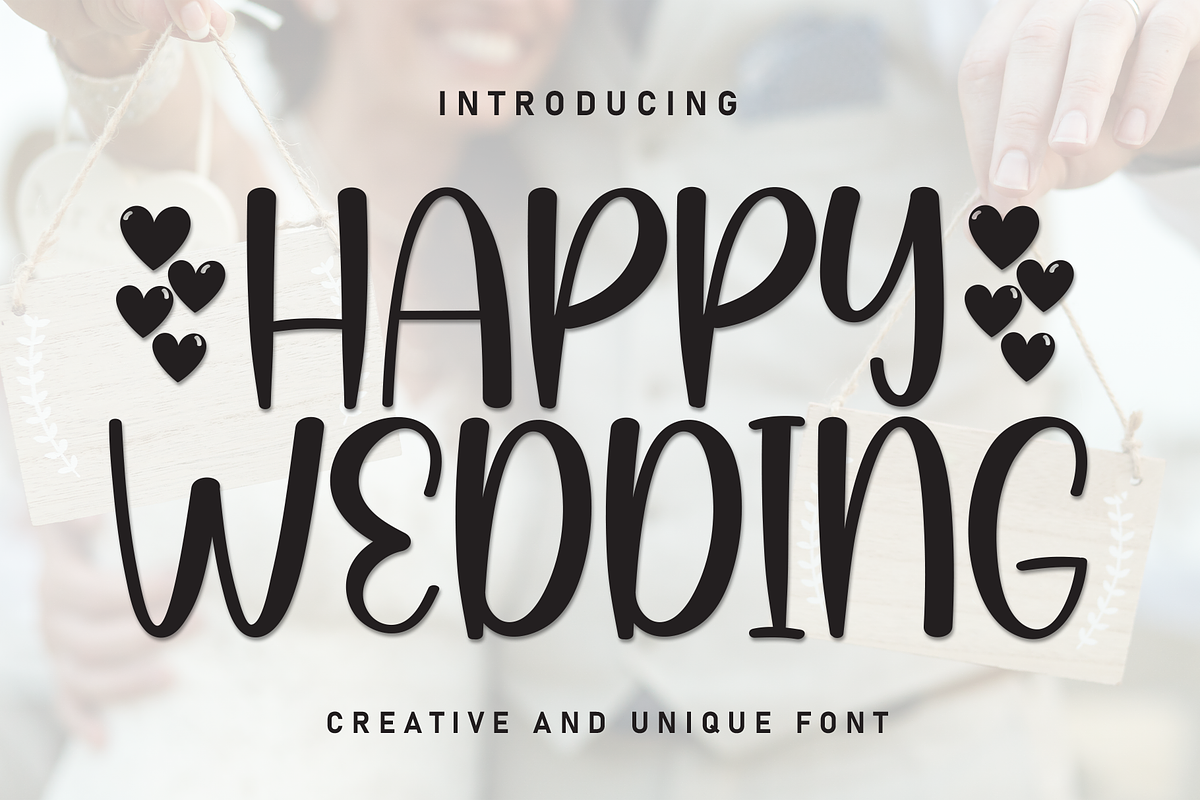
Happy Wedding | Script Font Free Download
Happy Wedding Script Font Free Download
Elevate your wedding-themed designs with the Happy Wedding Script Font Free Download. This elegant script font features sweet, round lettering that balances thickness and thinness, enhancing the beauty of invitations, greeting cards, branding, and other projects requiring a romantic touch. Its graceful curves and balanced proportions make it an ideal choice for conveying warmth and sophistication. Download the Happy Wedding Script Font Free Download to explore its features in personal projects. For commercial use, please ensure you purchase the appropriate license. Enhance your designs with the charm and elegance of the Happy Wedding Script Font Free Download